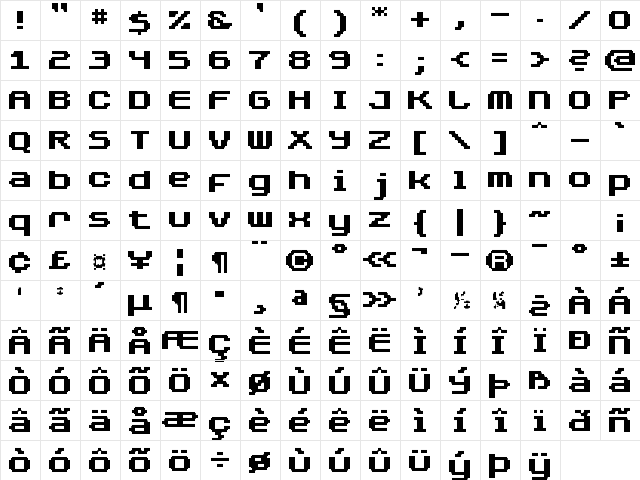
UF PT Ellus Regular
Design Context for UF PT Ellus Typeface
UF PT Ellus is a composed and adaptable typeface that performs quietly and consistently across a wide range of design contexts.